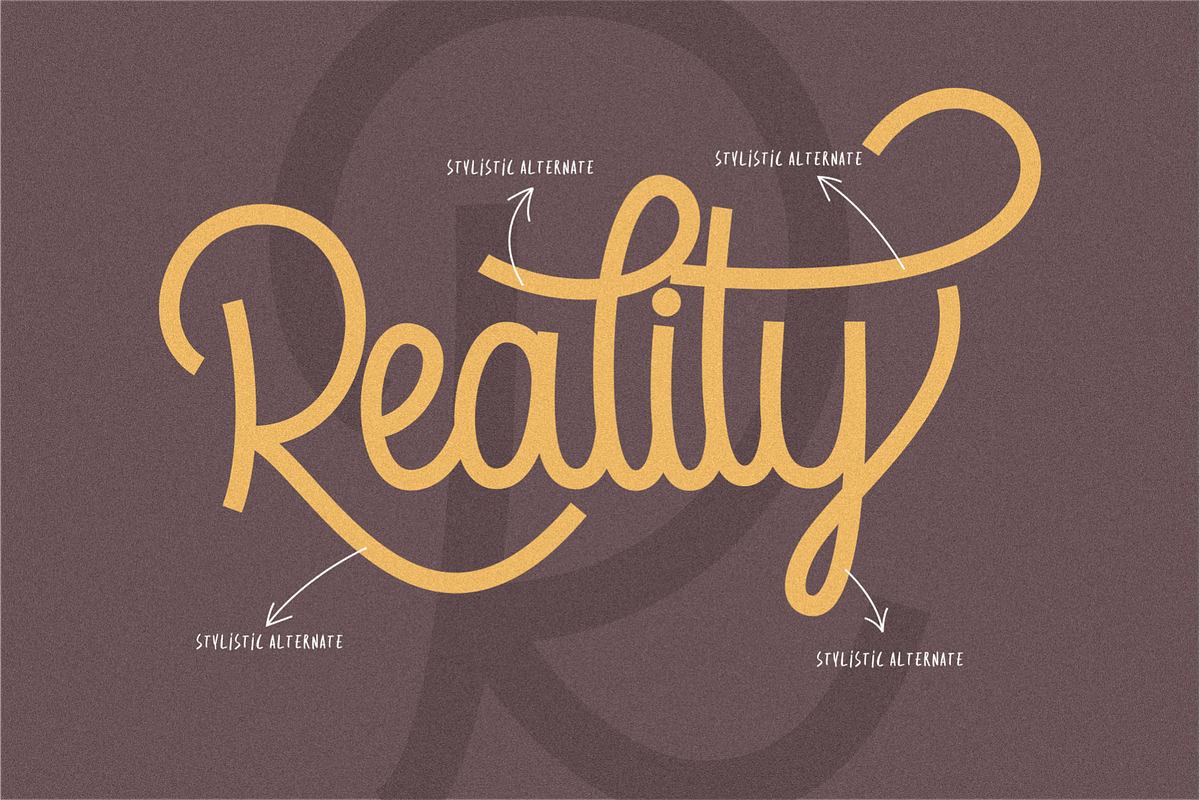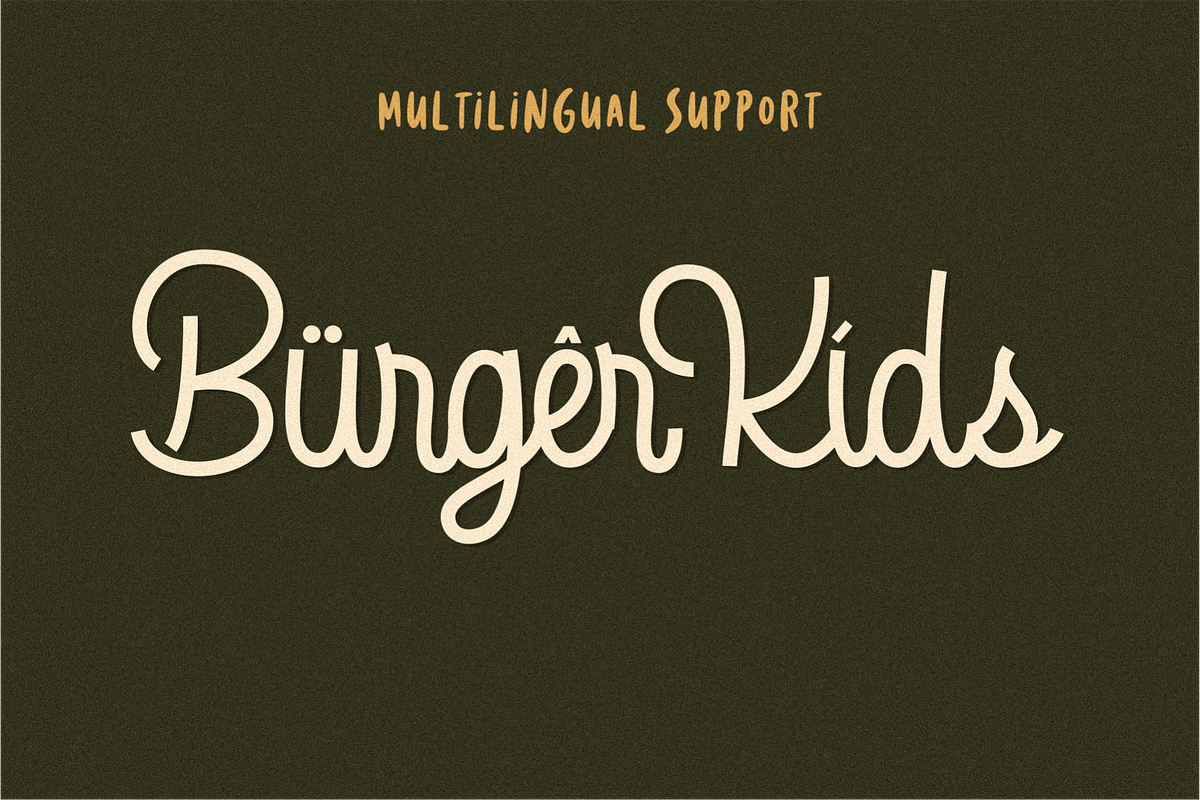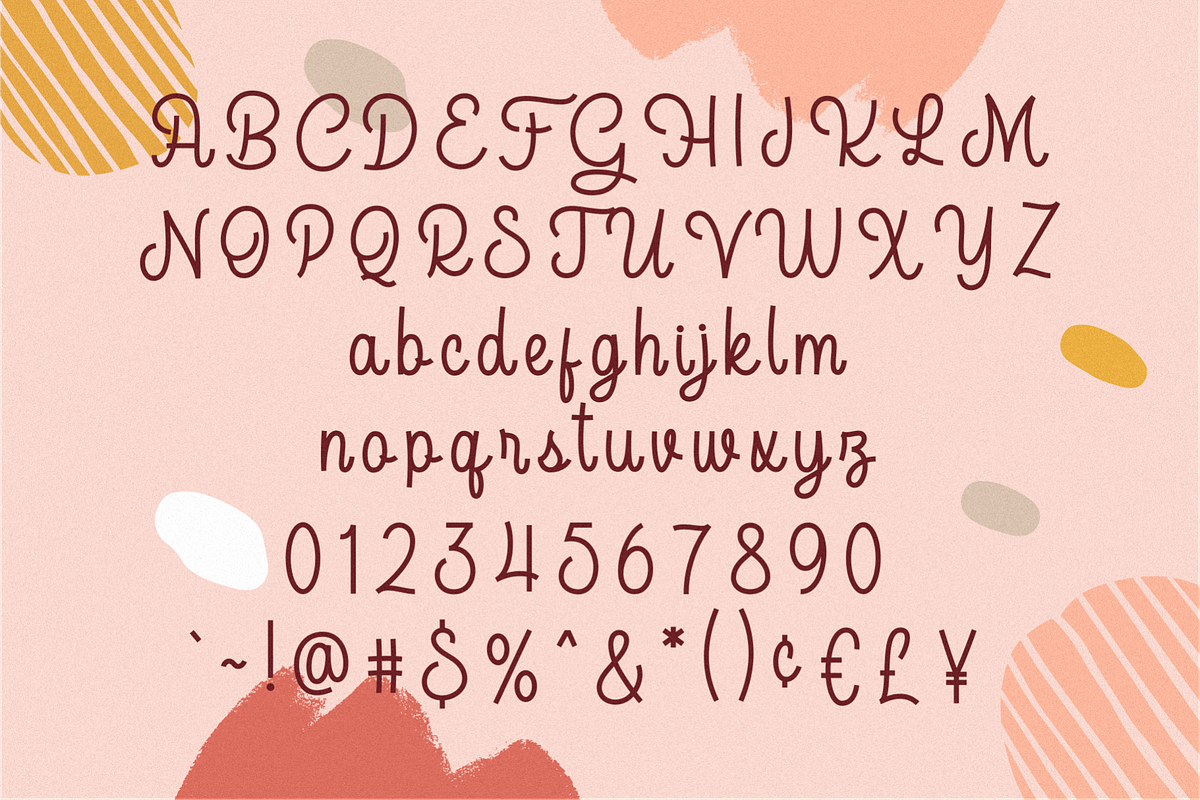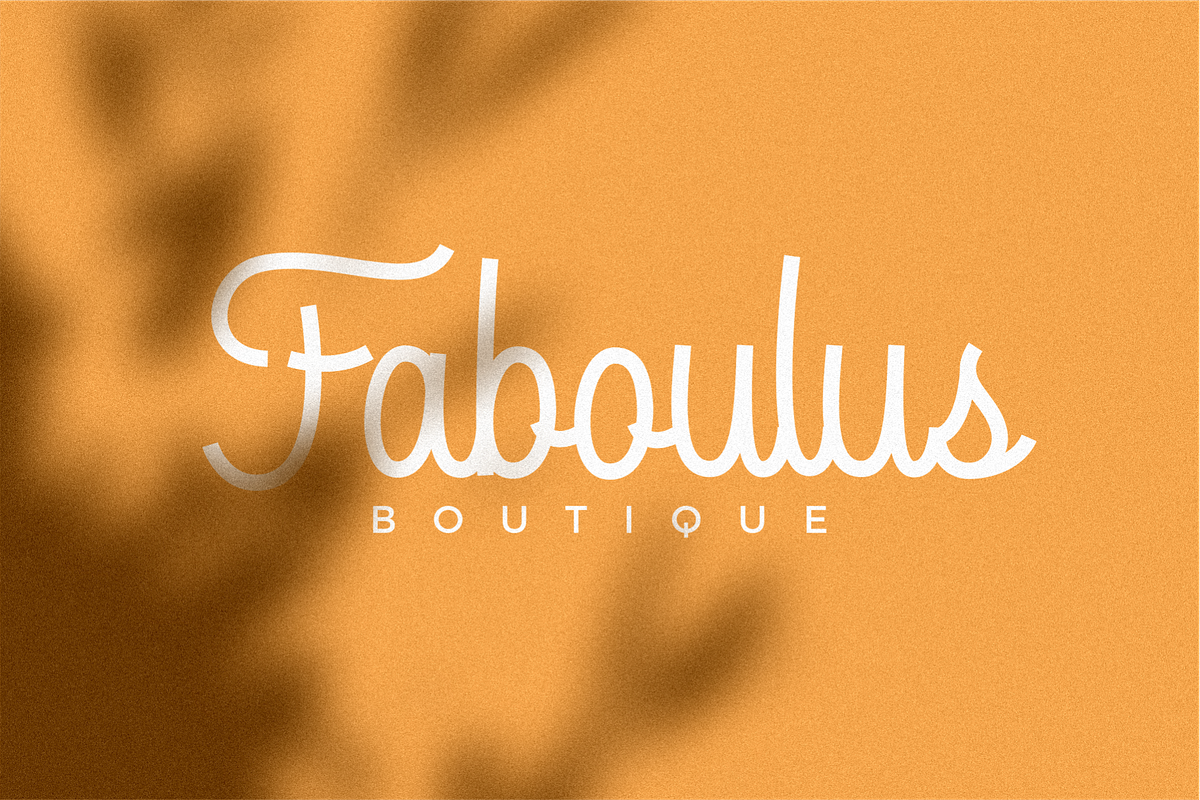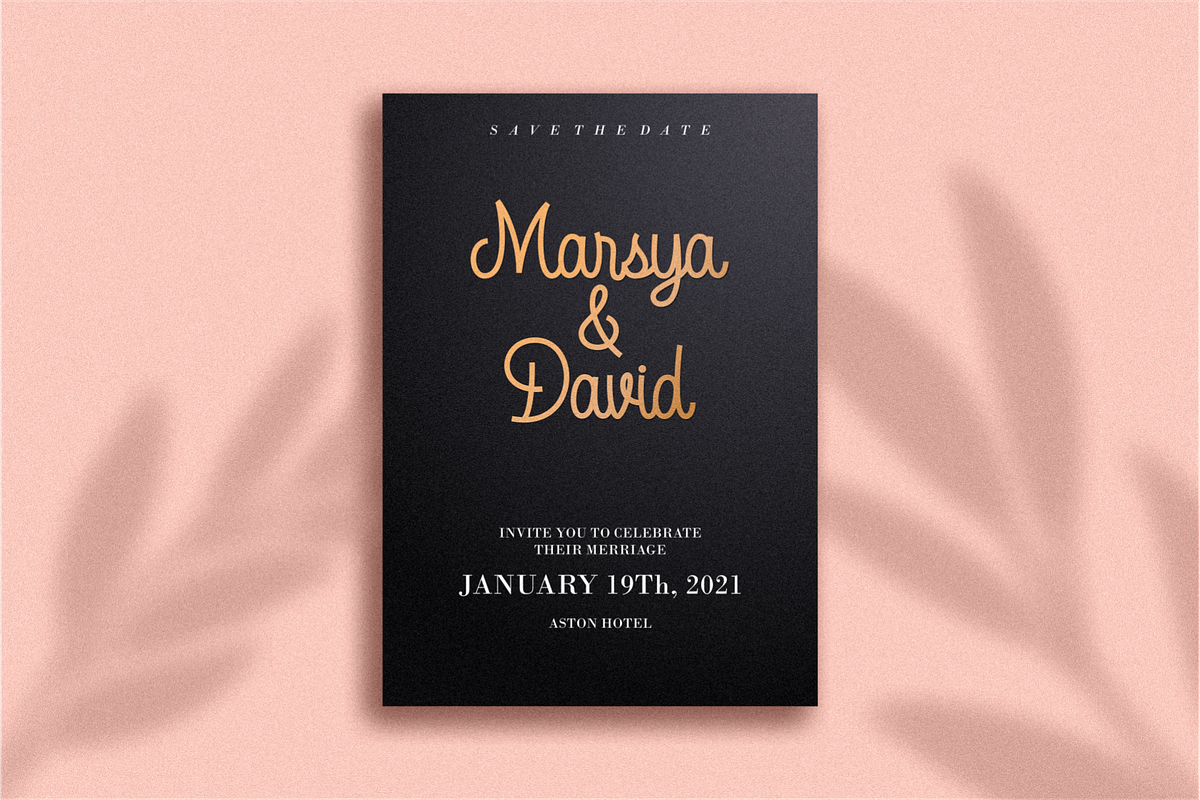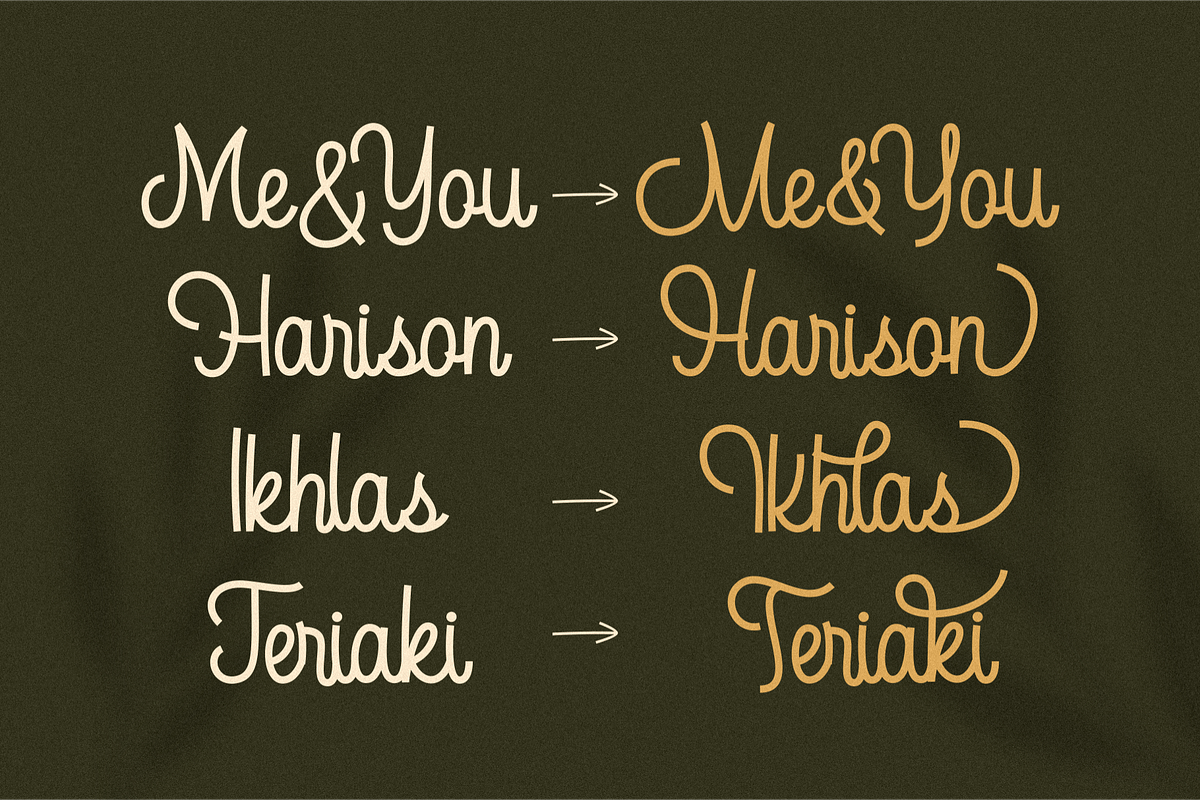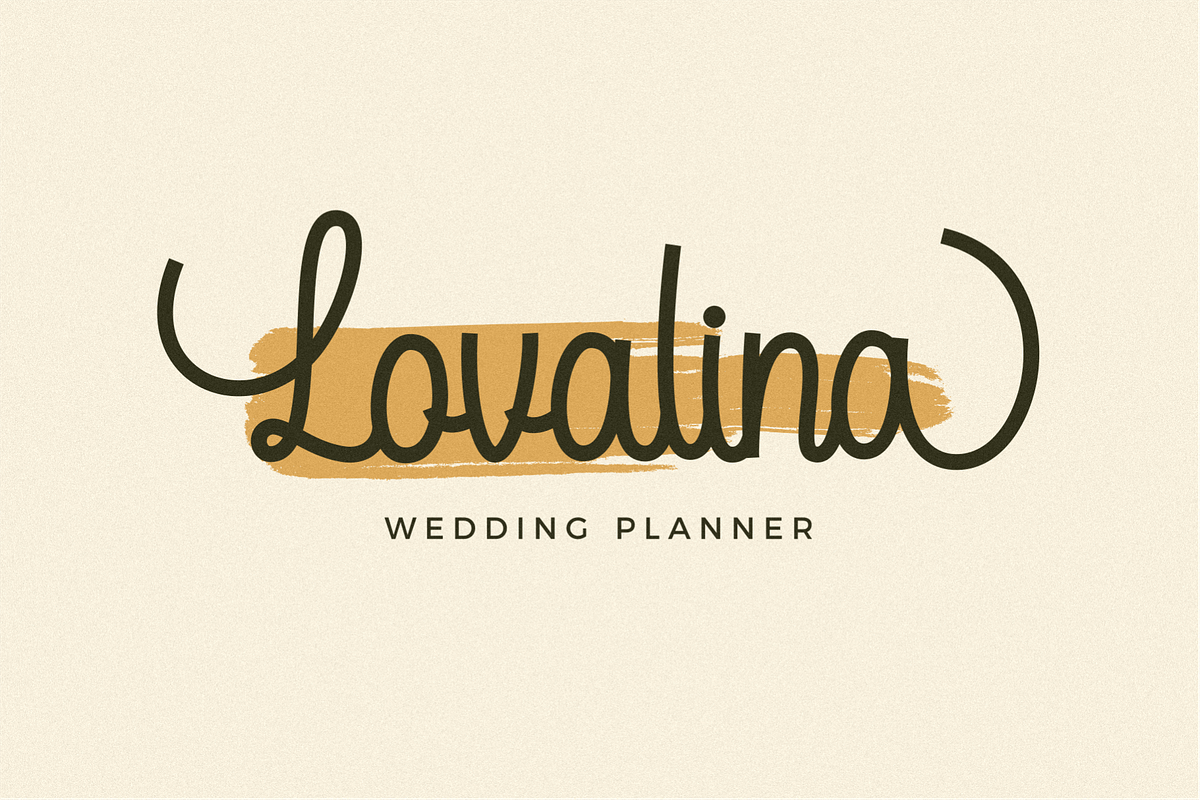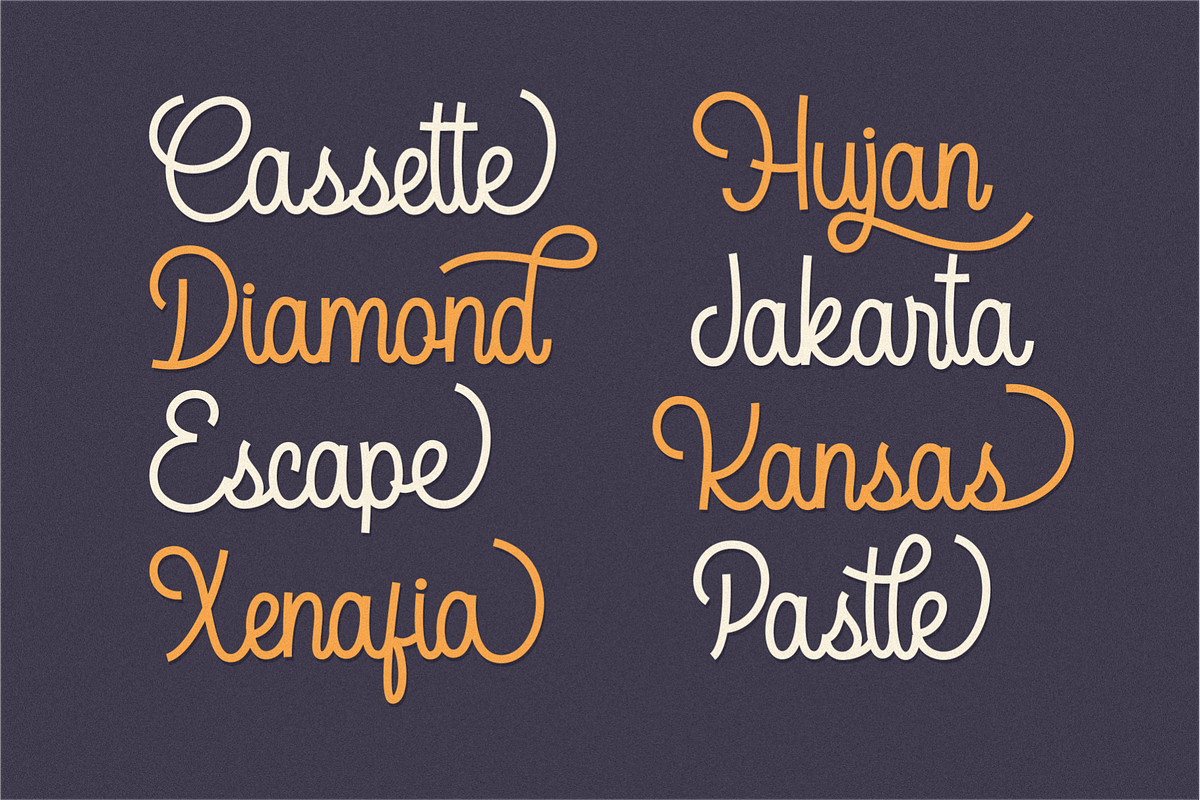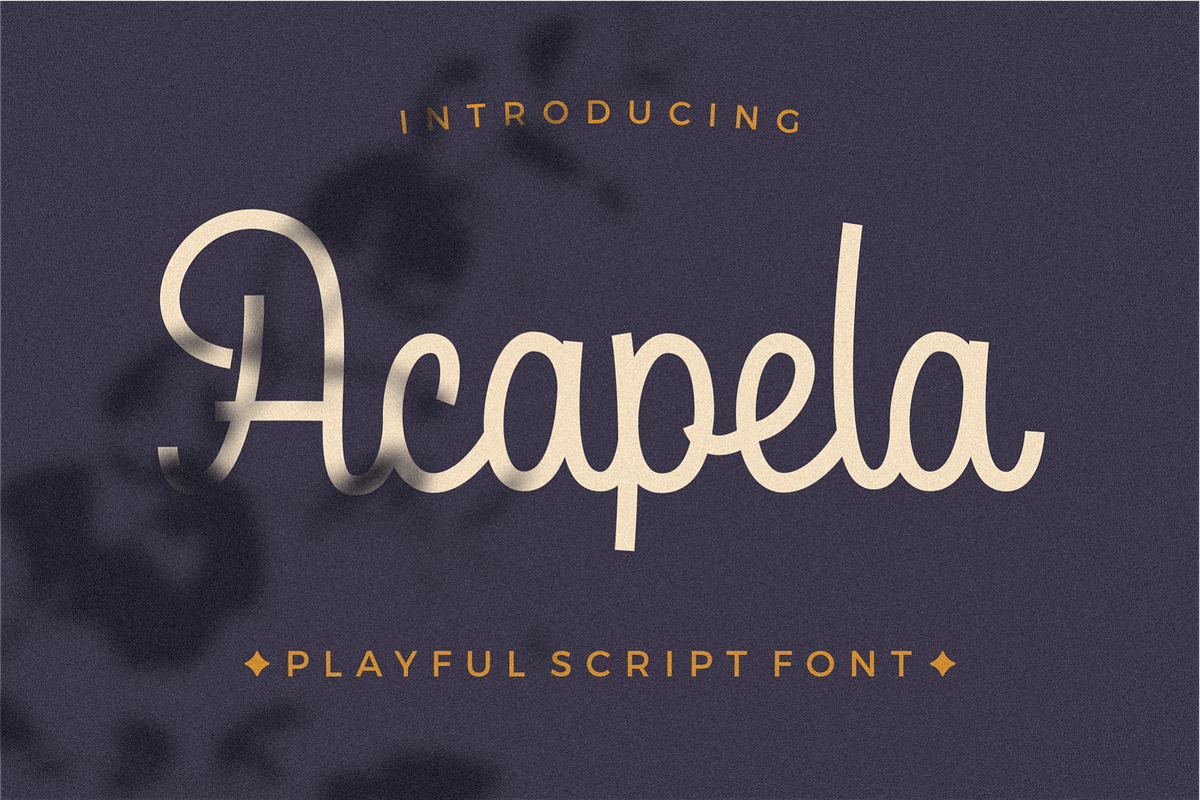
Acapela Monoline
Acapela beautiful script monoline fonts, perfect for logos, branding, signage, clothing, invitations, and any design. This font is equipped with an alternate that supports the beauty and cuteness of the font, and multilingual support.